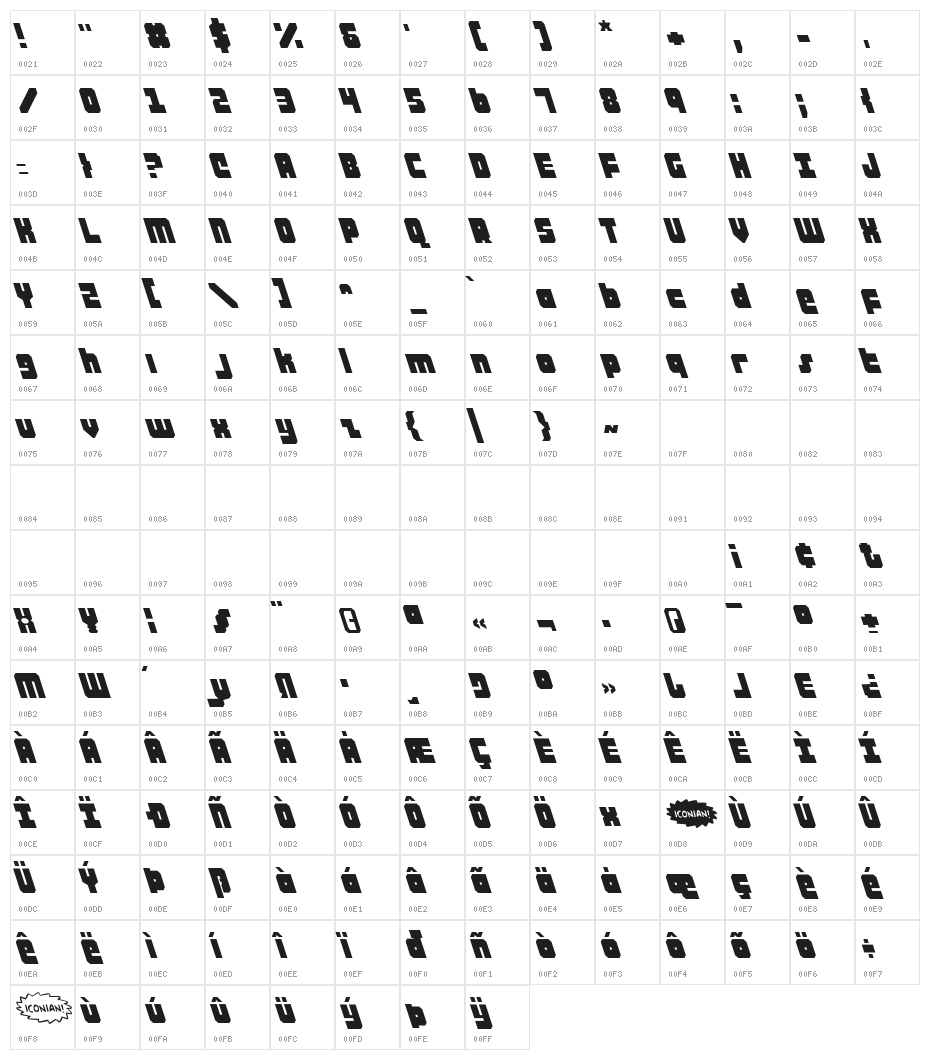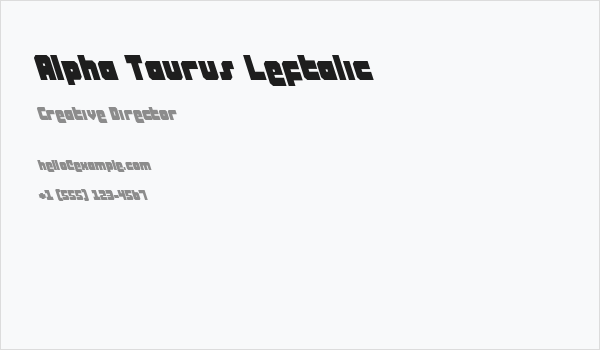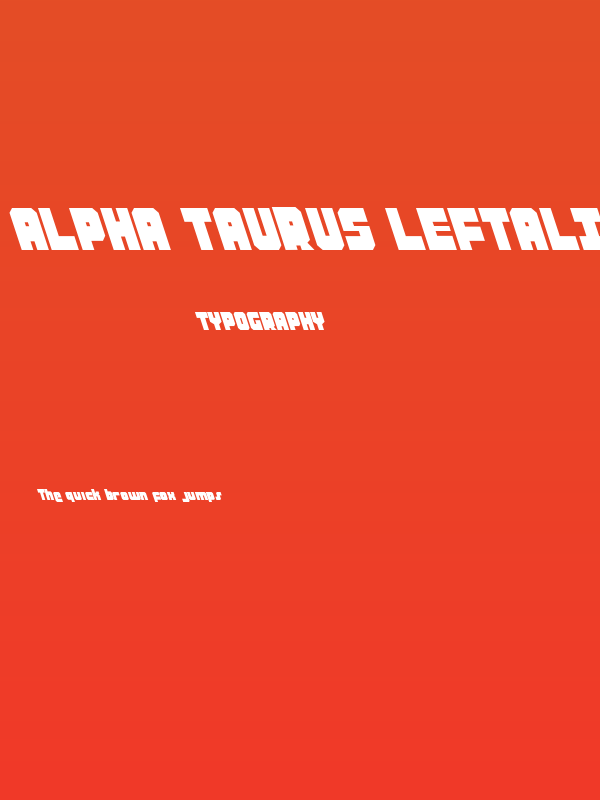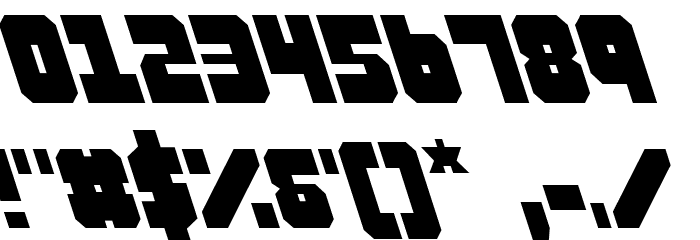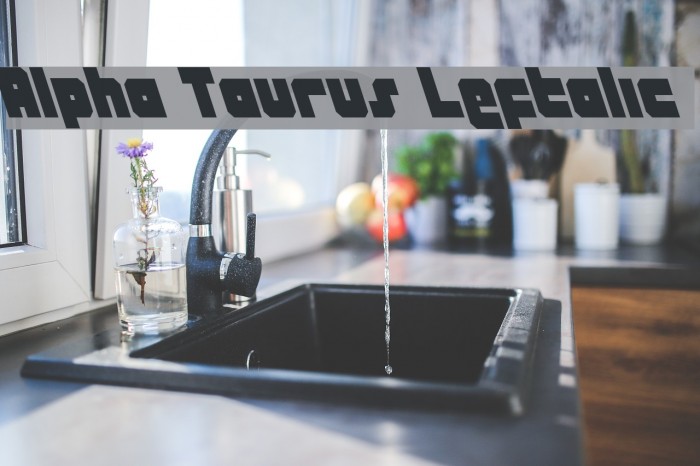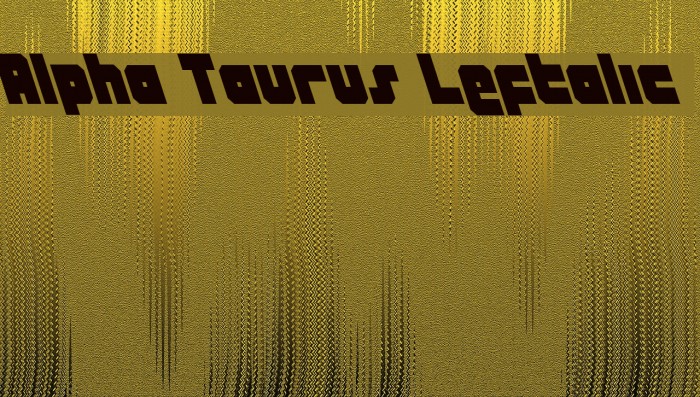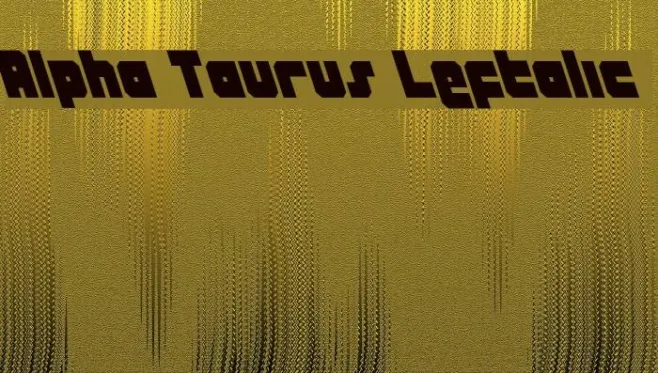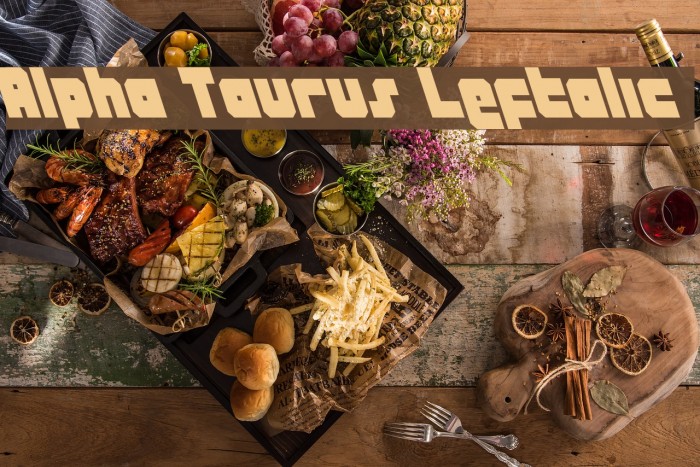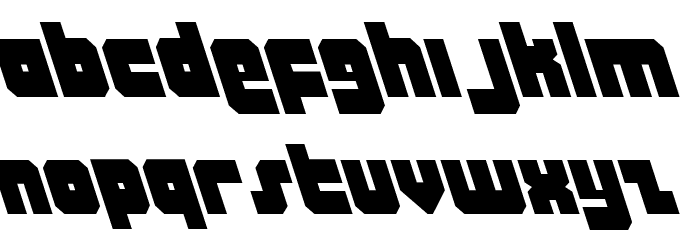
Alpha Taurus Leftalic Font
Alpha Taurus Leftalic Description
This font features a bold and angular design with a distinct slant to the left, giving it a dynamic and forward-moving appearance. The characters are blocky and geometric, with sharp edges and a strong presence. The uppercase and lowercase letters maintain a consistent style, while the numbers and special characters complement the overall aesthetic. The font's unique style makes it stand out, suitable for projects that require a bold statement.
| Proposed Projects | Ideal for sports branding, dynamic posters, video game titles, and futuristic designs. |